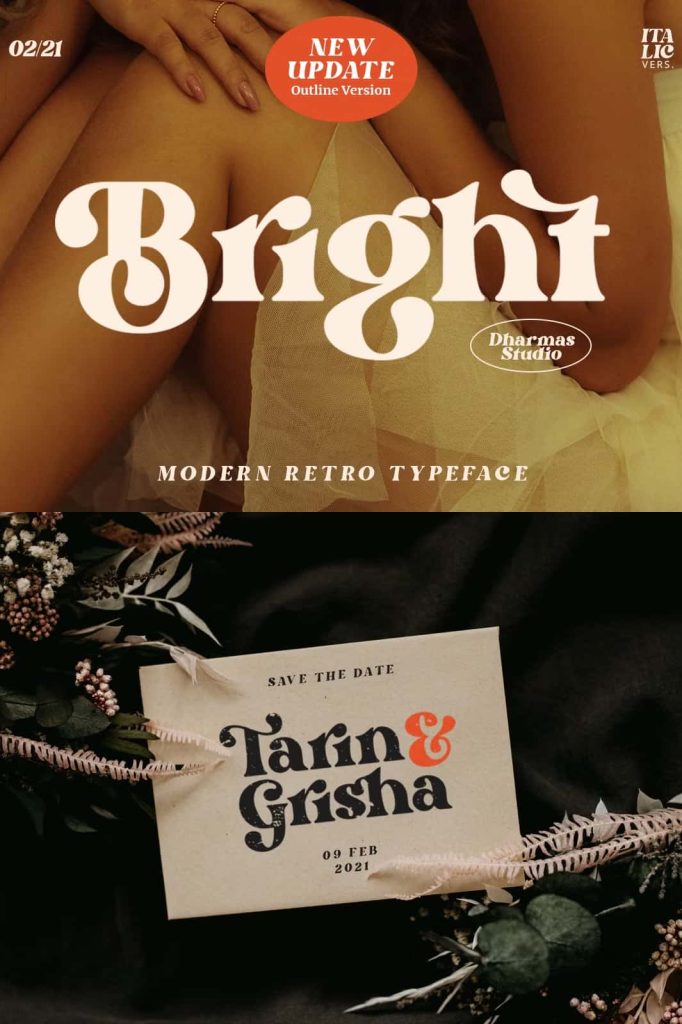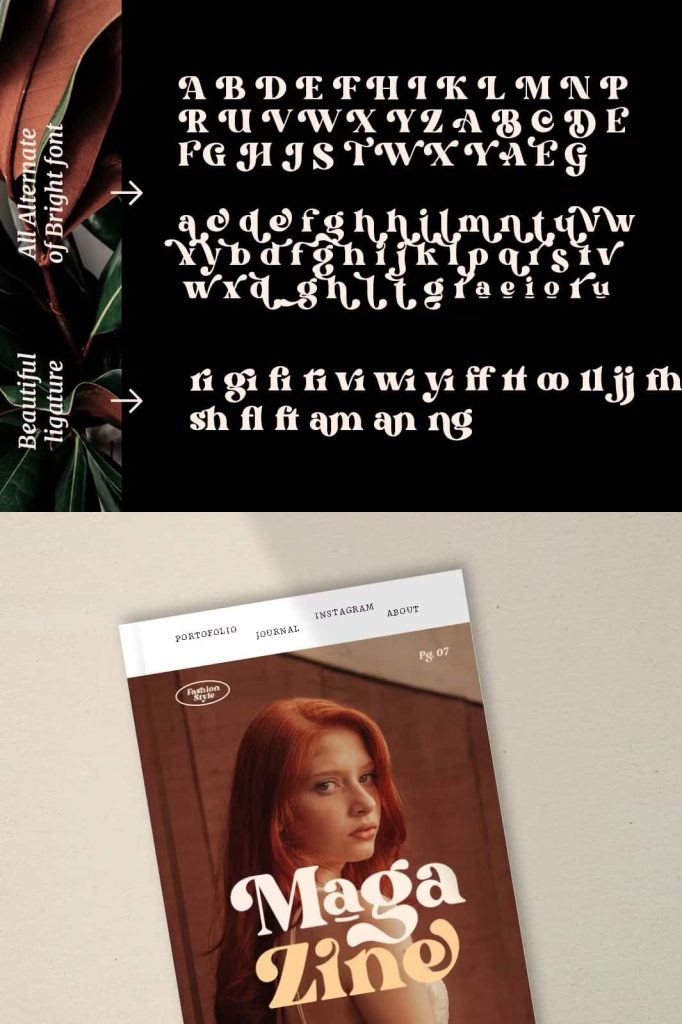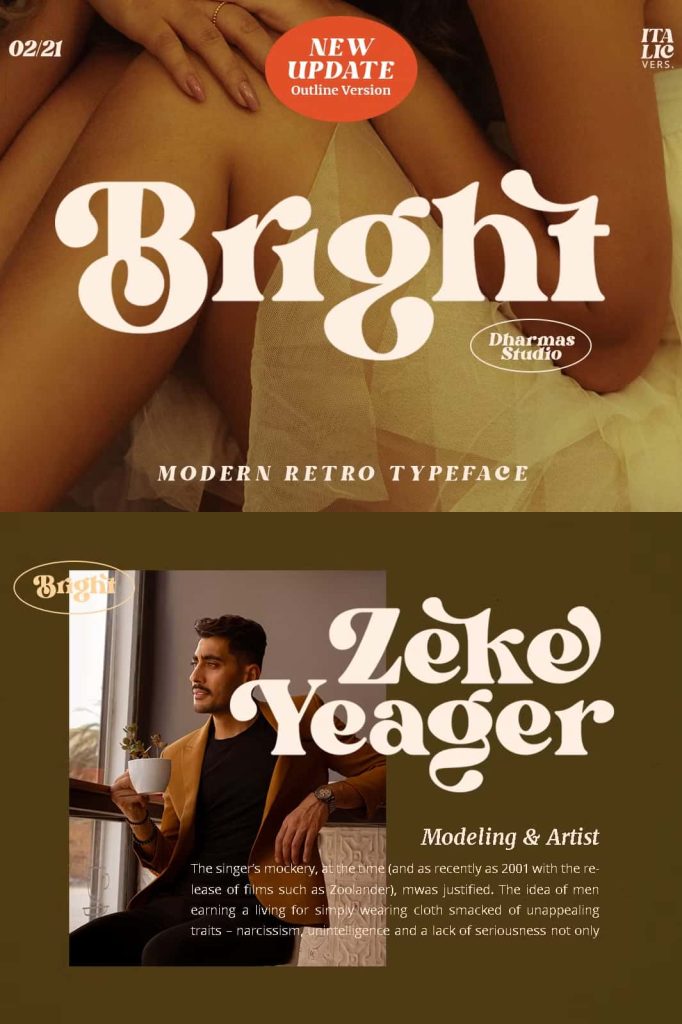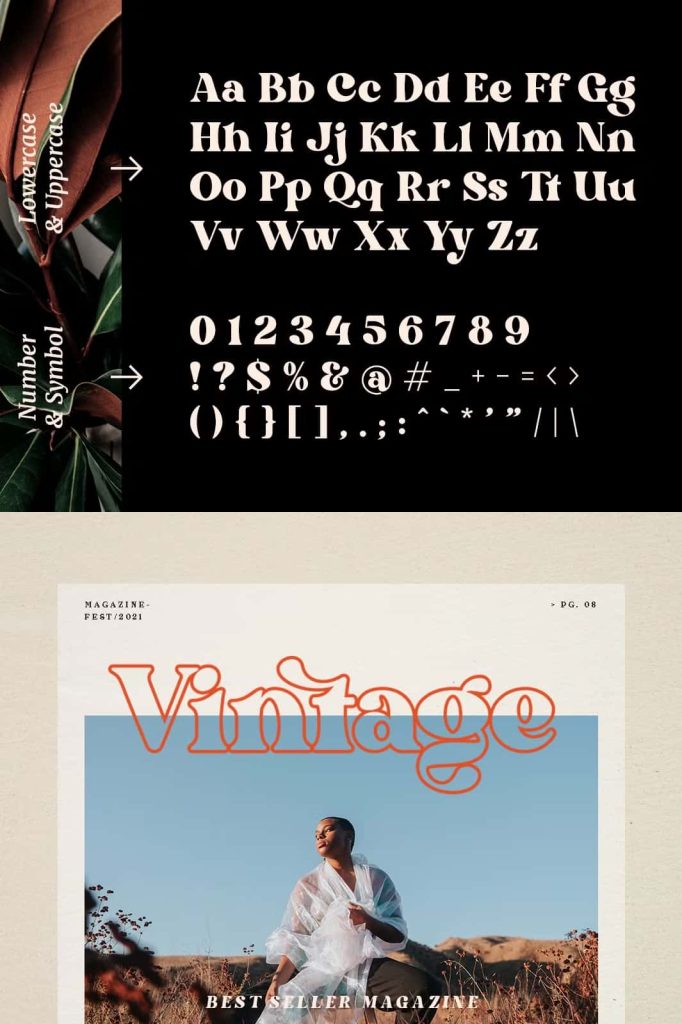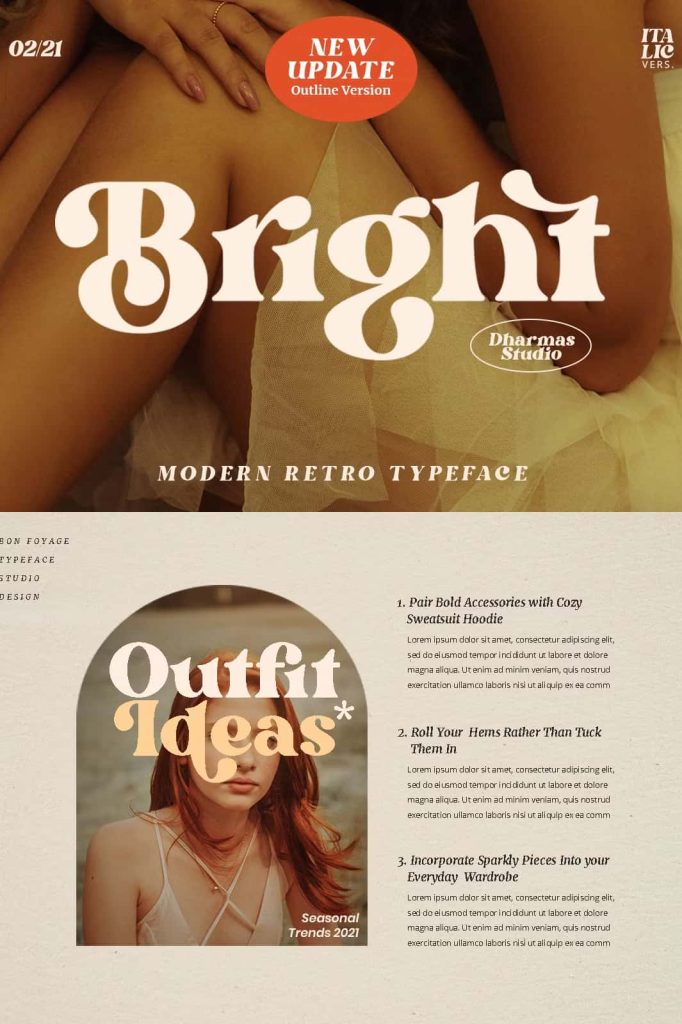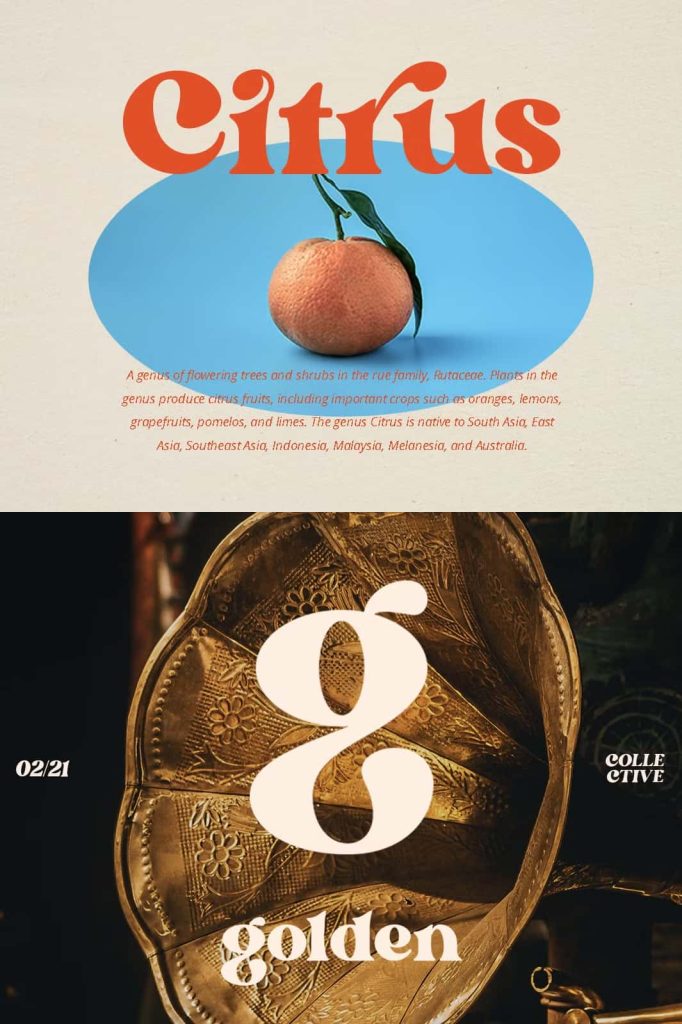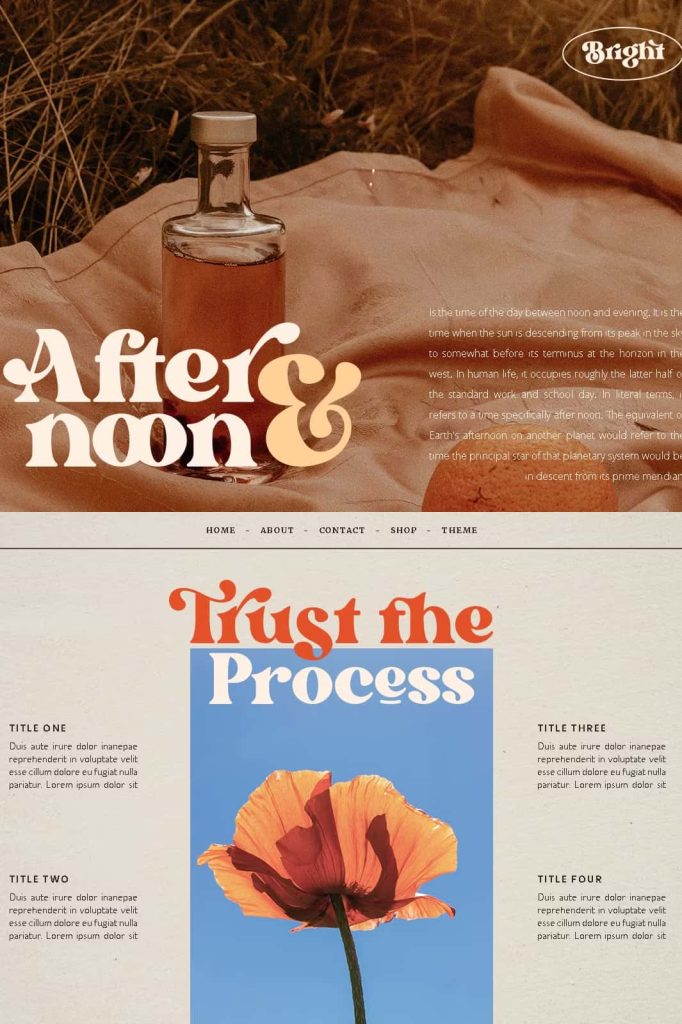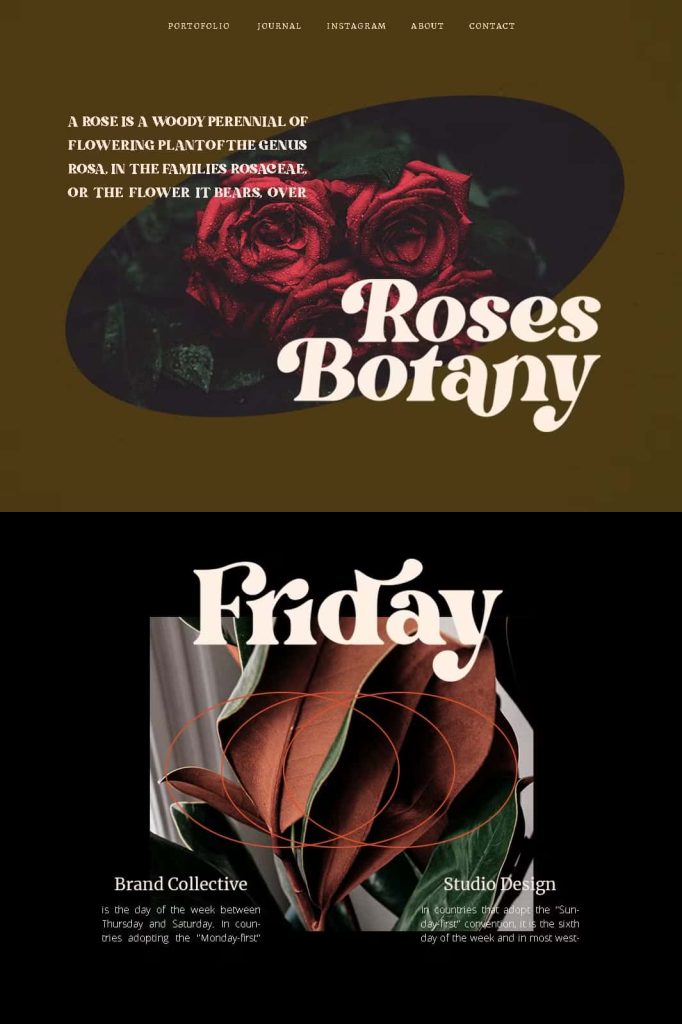
Bright Retro Font – Stylish Modern Typography with Classic 60s and 70s Inspiration
Bright Retro Font is a stylish and versatile typeface that perfectly combines modern design principles with the nostalgic charm of vintage typography. Featuring clean letterforms, bold character, and a playful personality, Bright offers designers the opportunity to create visually striking projects that feel both contemporary and timeless. Inspired by the iconic design trends of the 1960s and 1970s, this font delivers an authentic retro atmosphere while maintaining the clarity and readability required for modern applications.
Whether you are working on branding, advertising, packaging, posters, social media content, or creative merchandise, Bright Retro Font helps transform ordinary text into memorable visual elements. Its unique combination of vintage style and modern functionality makes it an excellent choice for designers who want to capture the energy, optimism, and creativity associated with classic retro design.
Inspired by the Iconic Design Era of the 1960s and 1970s
The 1960s and 1970s introduced some of the most recognizable visual styles in graphic design history. During these decades, typography embraced bold shapes, creative layouts, expressive forms, and a sense of artistic freedom. Bright Retro Font draws inspiration from these influential design movements while adapting them for contemporary creative projects.
The font captures the spirit of vintage advertising, classic album covers, retro packaging, magazine headlines, and promotional posters. By incorporating elements from this celebrated era, Bright allows designers to create authentic retro aesthetics without sacrificing modern usability.
Its nostalgic appeal instantly evokes memories of classic design while remaining fresh and relevant for today’s audiences.
A Perfect Balance of Modern and Retro Style
One of Bright’s strongest qualities is its ability to blend two distinct design worlds. On one hand, the font embraces retro influences that add warmth, character, and personality. On the other hand, it maintains a clean and modern structure that ensures excellent readability and professional presentation.
This balance allows designers to use Bright across a wide variety of projects without feeling limited to a specific style. Whether creating vintage-themed artwork or modern branding with retro influences, the font adapts seamlessly to different creative directions.
Clean and Readable Letterforms
Bright features carefully crafted characters that remain clear and legible across various sizes and applications. This makes the font suitable for both large display text and supporting design elements.
Distinctive Retro Character
The font incorporates stylistic details inspired by classic typography trends, helping designers achieve an authentic vintage look that feels both engaging and memorable.
Ideal for Branding and Logo Design
Typography plays a critical role in shaping a brand’s identity. Bright Retro Font helps businesses establish a unique visual presence by combining personality, readability, and timeless style. Its distinctive appearance makes it particularly effective for brands that want to communicate creativity, individuality, and authenticity.
Designers can use Bright for logos, visual identities, packaging systems, marketing materials, and promotional campaigns. The font works exceptionally well for lifestyle brands, fashion labels, creative agencies, entertainment businesses, cafes, restaurants, and boutique retailers.
Its retro-inspired character helps create memorable logos that stand out in competitive markets while maintaining a professional appearance.
Create Eye-Catching Posters and Advertising Materials
Bright Retro Font excels in large-format applications where strong visual impact is essential. Posters, flyers, advertisements, event promotions, and marketing campaigns benefit from the font’s bold personality and nostalgic appeal.
The expressive design immediately captures attention, making it an effective choice for projects that need to communicate excitement, creativity, and energy. Whether promoting a music festival, product launch, special event, or retail campaign, Bright helps ensure that your message stands out.
Perfect for Packaging and Merchandise Design
Product packaging often serves as a brand’s first opportunity to connect with customers. Bright Retro Font enhances packaging designs by adding personality, charm, and visual interest. Its vintage-inspired style works particularly well for food products, beverages, cosmetics, apparel, handmade goods, and specialty merchandise.
The font also performs exceptionally well on merchandise such as t-shirts, tote bags, mugs, stickers, notebooks, and promotional products. Its bold and stylish appearance helps create designs that customers remember and appreciate.
Enhance Social Media and Digital Content
In today’s digital landscape, strong typography can significantly improve engagement and brand recognition. Bright Retro Font adapts beautifully to social media graphics, website banners, online advertisements, digital presentations, and content marketing campaigns.
The font’s combination of retro aesthetics and modern clarity allows designers to create content that feels unique while remaining easy to read across different devices and screen sizes.
Whether designing Instagram posts, YouTube thumbnails, website headers, or promotional graphics, Bright provides the visual energy needed to attract attention in crowded digital spaces.
Versatile for Creative Projects
Beyond branding and marketing, Bright Retro Font works exceptionally well for a variety of creative applications. Designers can use it for album artwork, book covers, event invitations, greeting cards, magazine layouts, educational materials, and artistic projects that require a touch of vintage flair.
Its flexible design makes it suitable for both personal and commercial use, providing creative professionals with a dependable typography solution that supports a wide range of artistic goals.
Why Choose Bright Retro Font?
Bright Retro Font successfully combines modern design clarity with the timeless appeal of 1960s and 1970s typography. Its stylish appearance, clean structure, and nostalgic personality make it a valuable asset for designers seeking a versatile retro-inspired typeface.
Whether you are creating logos, posters, packaging, social media content, merchandise, or marketing materials, Bright delivers the visual impact needed to make your designs stand out. By blending vintage inspiration with contemporary functionality, this font helps create memorable experiences that capture attention and leave a lasting impression on audiences across both print and digital platforms.